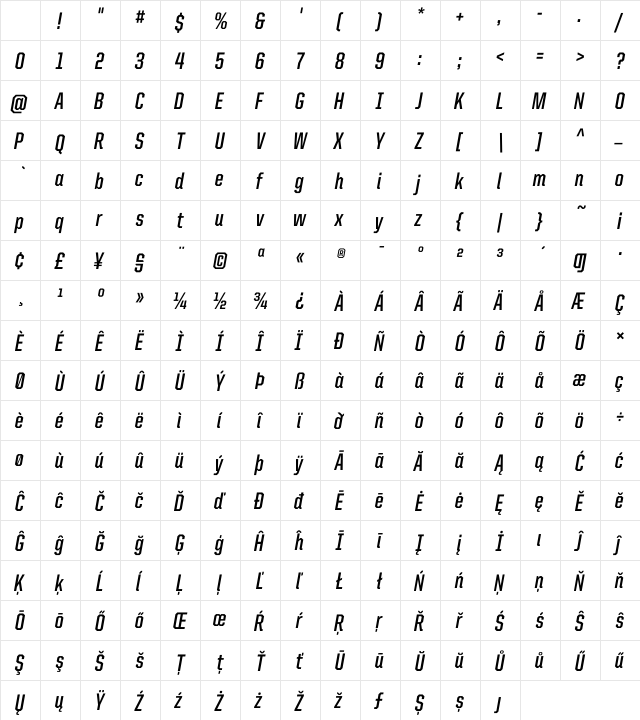
Complete United Italic Cond Bold glyph index. Displaying only characters natively supported by United Italic Cond Bold font.
United Italic Cond is a composed and adaptable typeface that performs quietly and consistently across a wide range of design contexts. The slanted form adds forward momentum and visual energy. Its bold stroke weight gives it real presence on the page. Its narrow stance lets it pack a punch even in space-constrained designs.
Pro Tip: Use United Italic Cond for emphasis, pull quotes, and subheadings where its slanted energy can add rhythm to the layout.